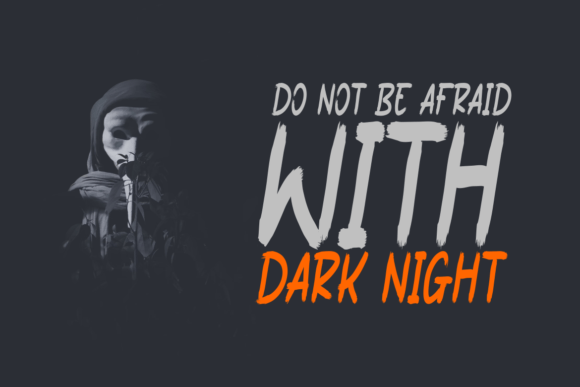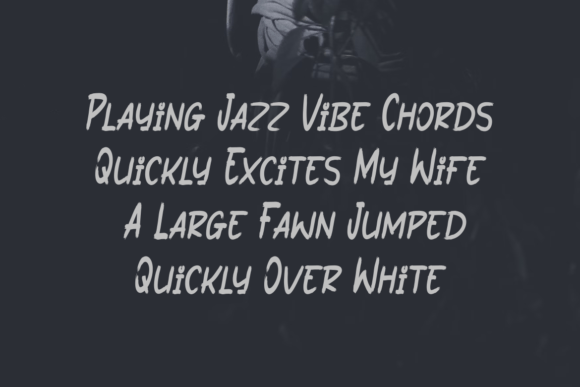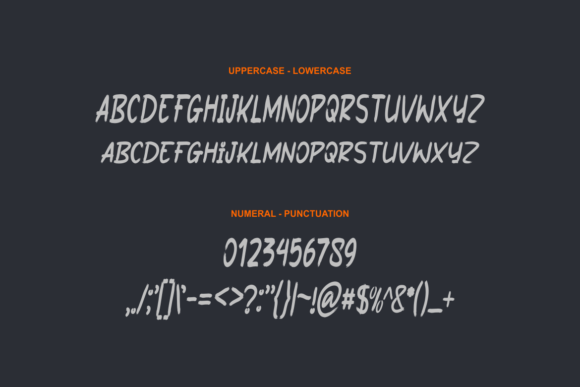
Introduction to Kenken Bray Font
Have you ever found yourself stuck in a creative rut, scrolling through design inspiration boards, searching for that one font that sparks your imagination? I know I have. It’s like stumbling upon a hidden treasure chest filled with high-quality design resources, and in that moment, your creative project takes a magical turn. That’s exactly what happened when I discovered the enchanting Kenken Bray Font.
This modern yet whimsical display font has the power to transport your designs into a mystical world, where transparency and creativity know no bounds. With its unique style and versatility, the Kenken Bray Font is an invaluable asset for designers, allowing them to bring their visions to life with ease. Whether you’re working on a free download project or a paid commission, this font is sure to be a game-changer.
Key Features of Kenken Bray Font
- High-quality font designed for creative projects, ideal for digital artwork and graphics.
- Features a unique, hand-drawn style with a transparent background, allowing for easy layering and customization.
- High-resolution design (300 DPI) ensures crisp and clear text rendering, suitable for print and digital applications.
- Kenken Bray Font is a versatile design resource, perfect for creating eye-catching titles, headings, and text overlays.
Honest Review: Kenken Bray Font
As a designer, I’m always on the lookout for high-quality fonts to elevate my creative projects. Recently, I stumbled upon the Kenken Bray Font, and I’m excited to share my thoughts on this design resource.
- ✨ The Kenken Bray Font has a unique, modern aesthetic that’s perfect for adding a touch of sophistication to any design project.
- ✨ The transparent background option is a great feature, allowing for seamless integration into any design.
However, there are some limitations:
- ⚠️ The font may not be suitable for projects that require a more traditional or classic look.
- ⚠️ Some users may find the font’s bold lines and geometric shapes to be a bit overwhelming.
Overall, I’m impressed with the Kenken Bray Font. Its unique design and free availability make it an excellent addition to any designer’s toolkit. While it may not be suitable for every project, I believe it’s a valuable resource for designers looking to add some creativity to their work.
The Kenken Bray Font is suitable for various design projects, including logos, branding materials, and marketing materials. It’s also a great font for creating a consistent design style across multiple platforms.